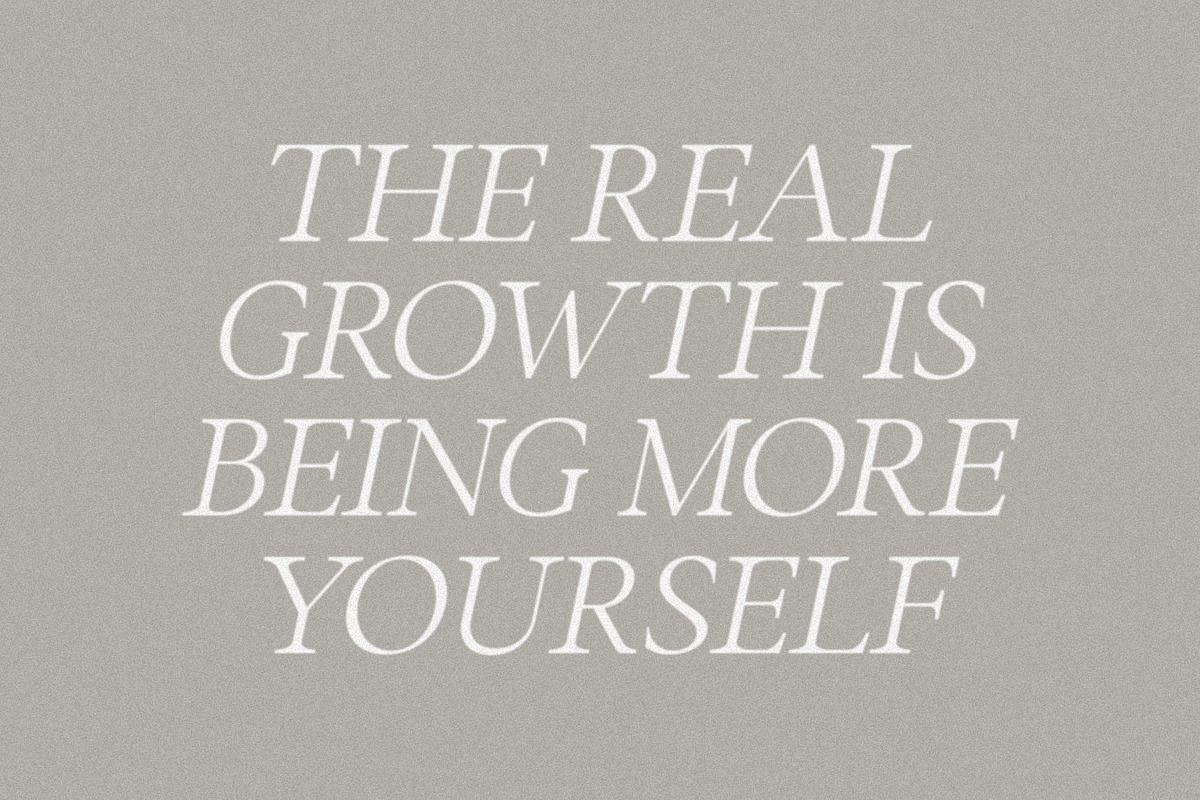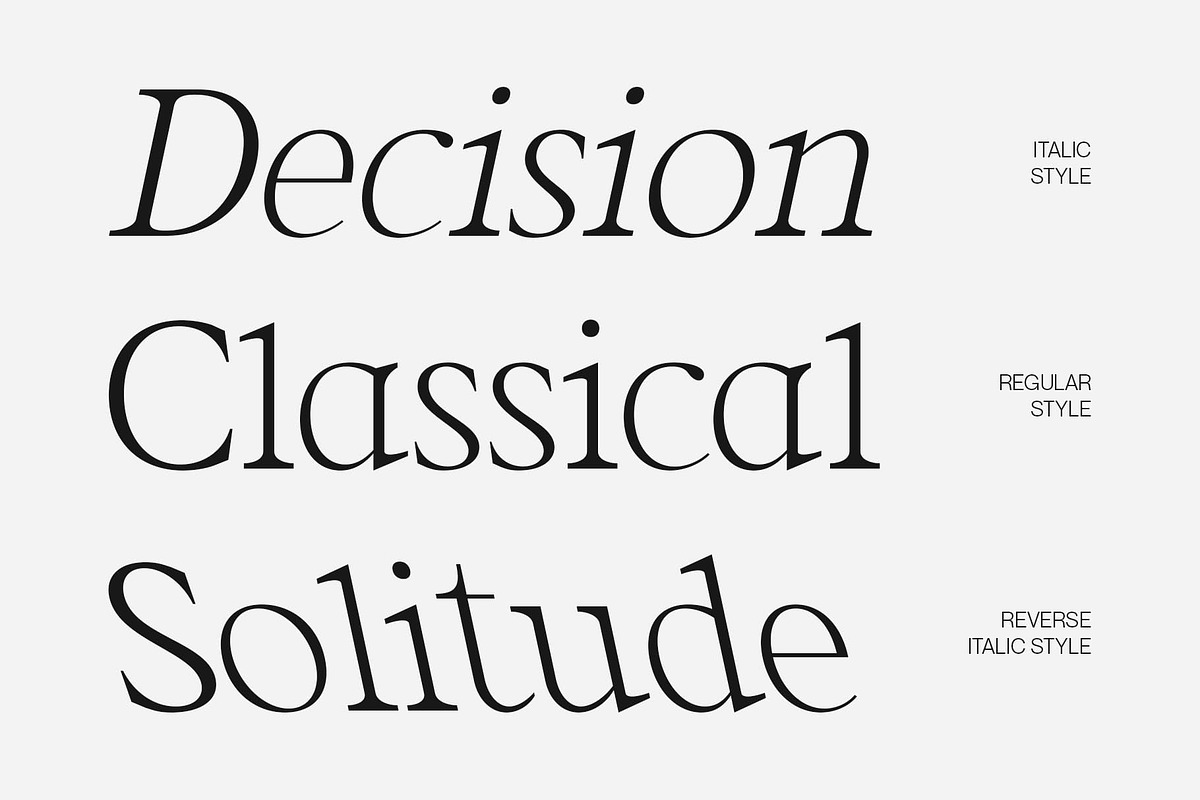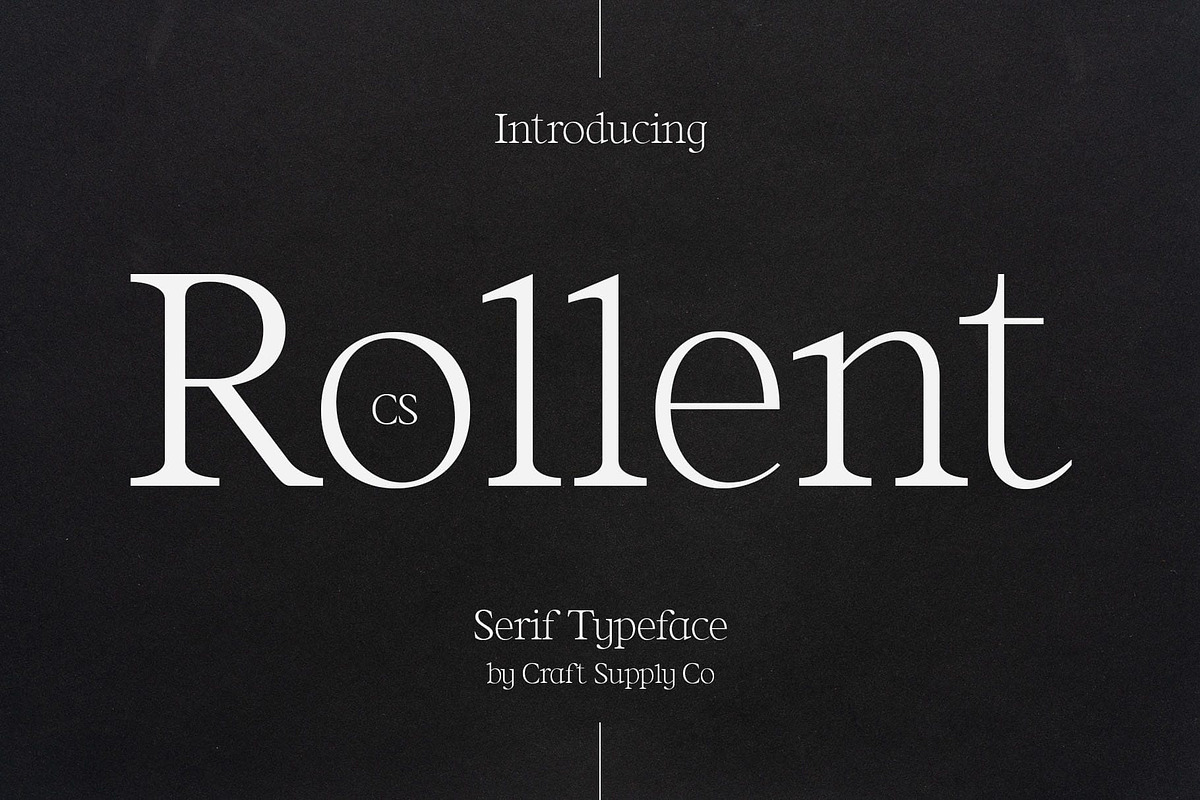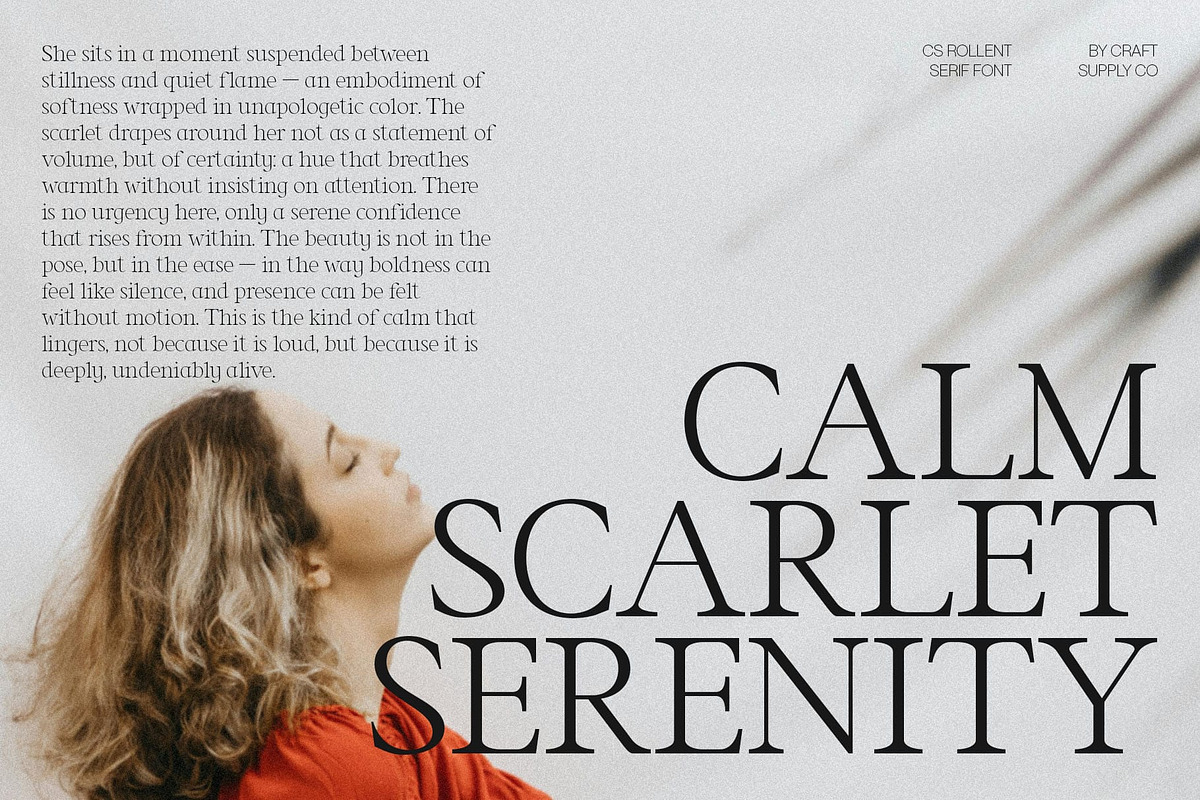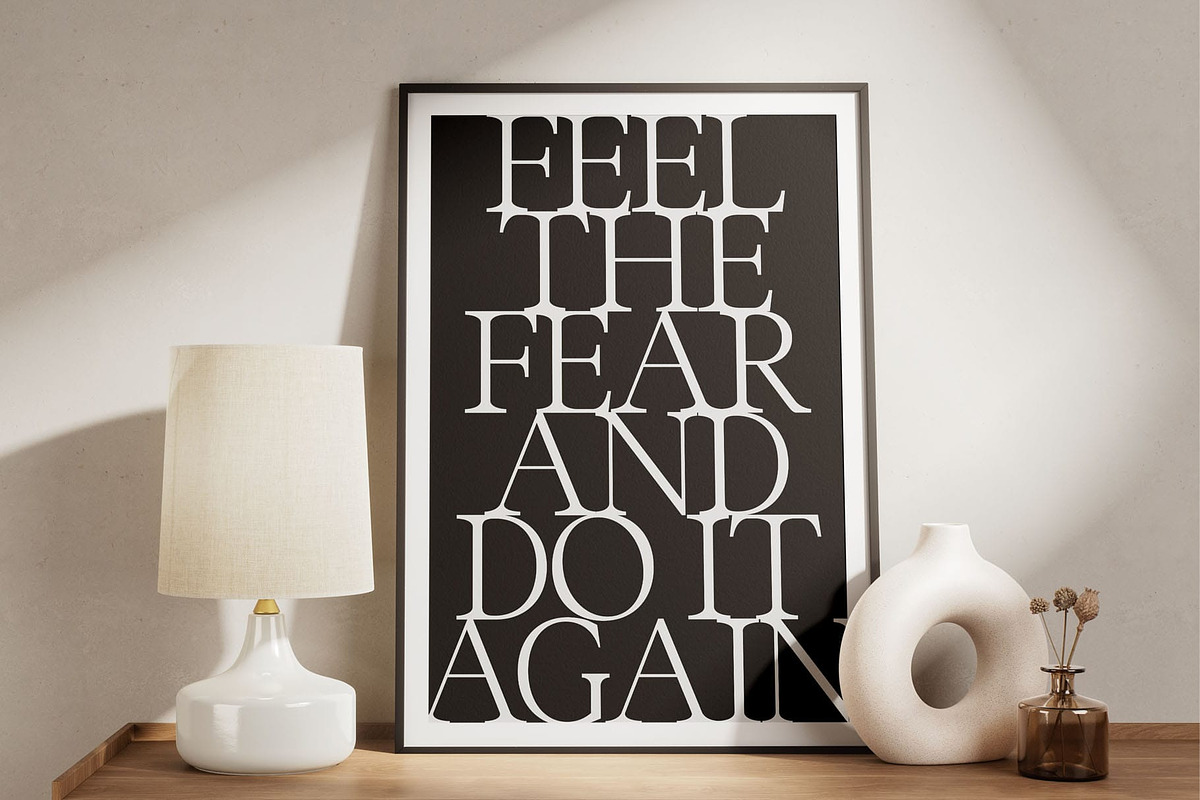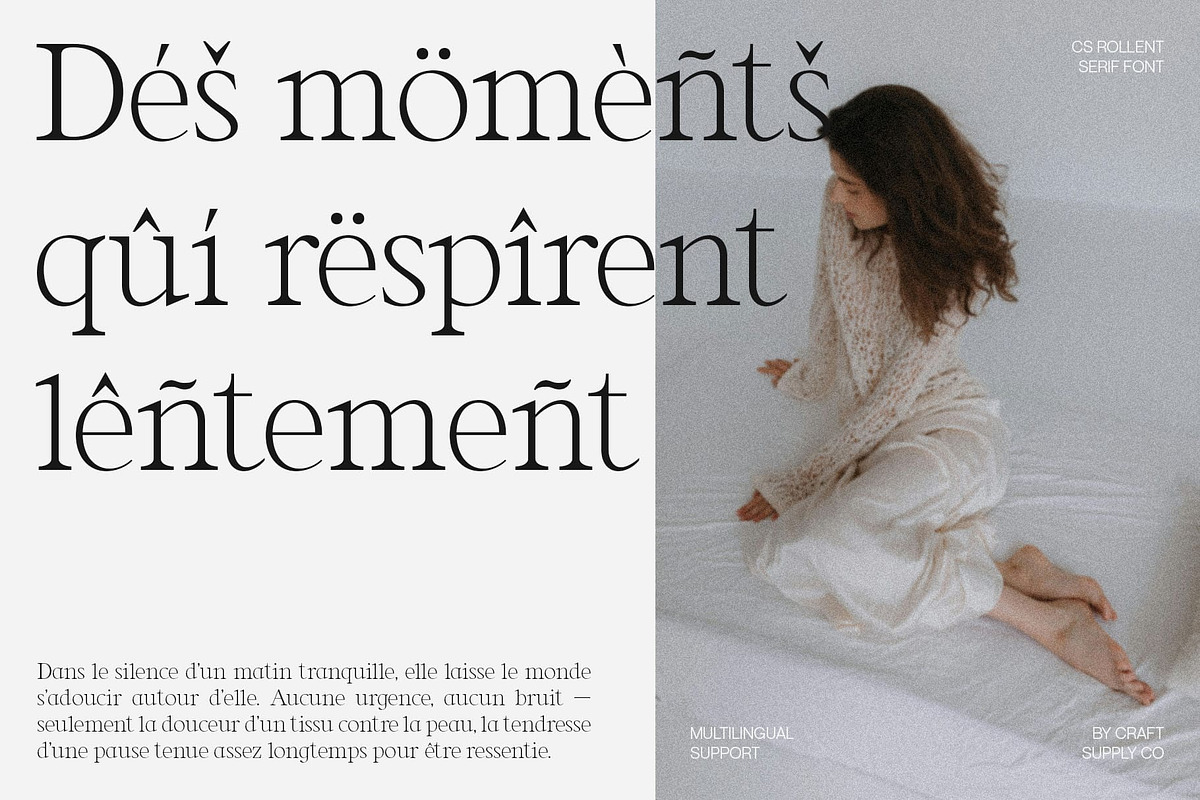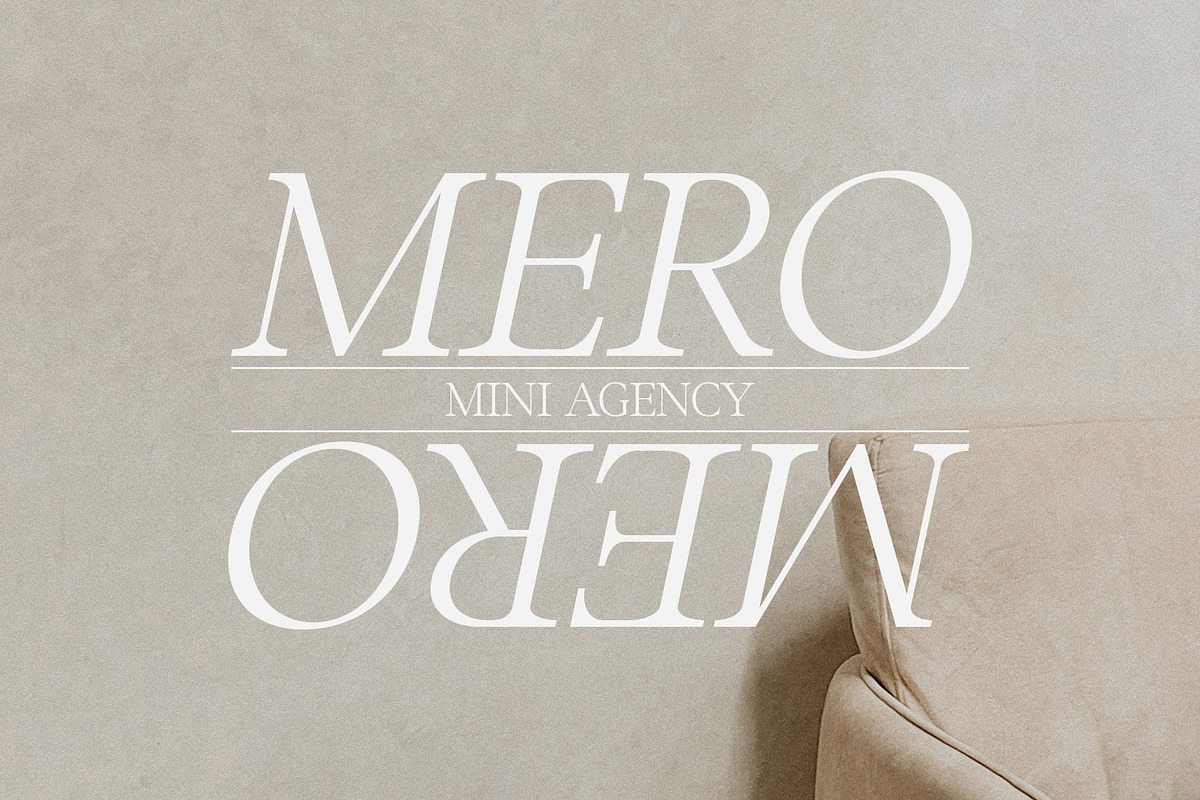
CS Rollent – Classic Serif Font
CS Rollent – Modern Classic Serif Font: Where Precision Meets Professionalism
Modern Classic Serif with Geometric Balance This is a modern classic serif font that blends timeless sophistication with contemporary structure. Its geometric proportions and clean lines create a balanced and professional aesthetic, perfect for designers seeking a refined yet modern typographic solution.
Professional Form with Modern Simplicity Crafted with attention to precision, this font combines the grace of classic serif traditions with the crisp simplicity of modern design. Each character reflects intentional structure clean edges, sharp serifs, and well-defined spacing resulting in a font that feels both enduring and fresh. This makes it an excellent choice for editorial headlines, magazine titles, and sophisticated branding projects that value clarity and professionalism.
Stylish Geometry for Versatile Design The geometric foundation of this font adds a sense of structure and confidence, while its minimalist form enhances readability across different media. Whether used in digital platforms or print materials, its proportional design maintains consistency and harmony. The result is a font that communicates both precision and artistry, ideal for modern luxury brands and professional layouts.
Versatile for Modern Applications Its modern yet classic essence adapts seamlessly to diverse design contexts whether you’re crafting a sophisticated corporate identity or an elegant publication. With its professional tone and confident geometry, this font elevates every project with poise, balance, and undeniable style.